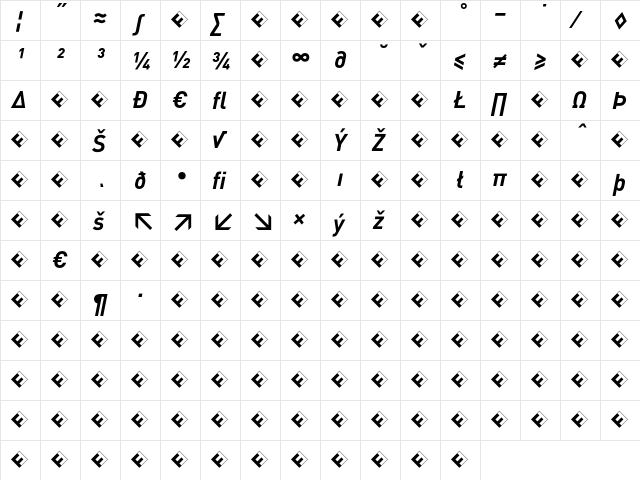
DIN-BoldItalicExp Regular Font Preview
Design Context for DIN-BoldItalicExp Typeface
DIN-BoldItalicExp takes a measured approach to typography — its balanced proportions and neutral character make it a reliable workhorse for both digital and print work. Its italic angle brings a sense of urgency and motion to the letterforms. The heavy weight commands attention and anchors typographic hierarchies.
Pro Tip: Use DIN-BoldItalicExp for emphasis, pull quotes, and subheadings where its slanted energy can add rhythm to the layout.